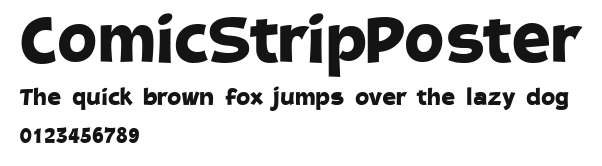
• Font Name: ComicStripPoster
About ComicStripPoster.ttf
ComicStripPoster.ttf is a modern, elegant sans-serif font designed for ultimate readability and visual harmony. Perfect for branding, headlines, web design, and print materials.